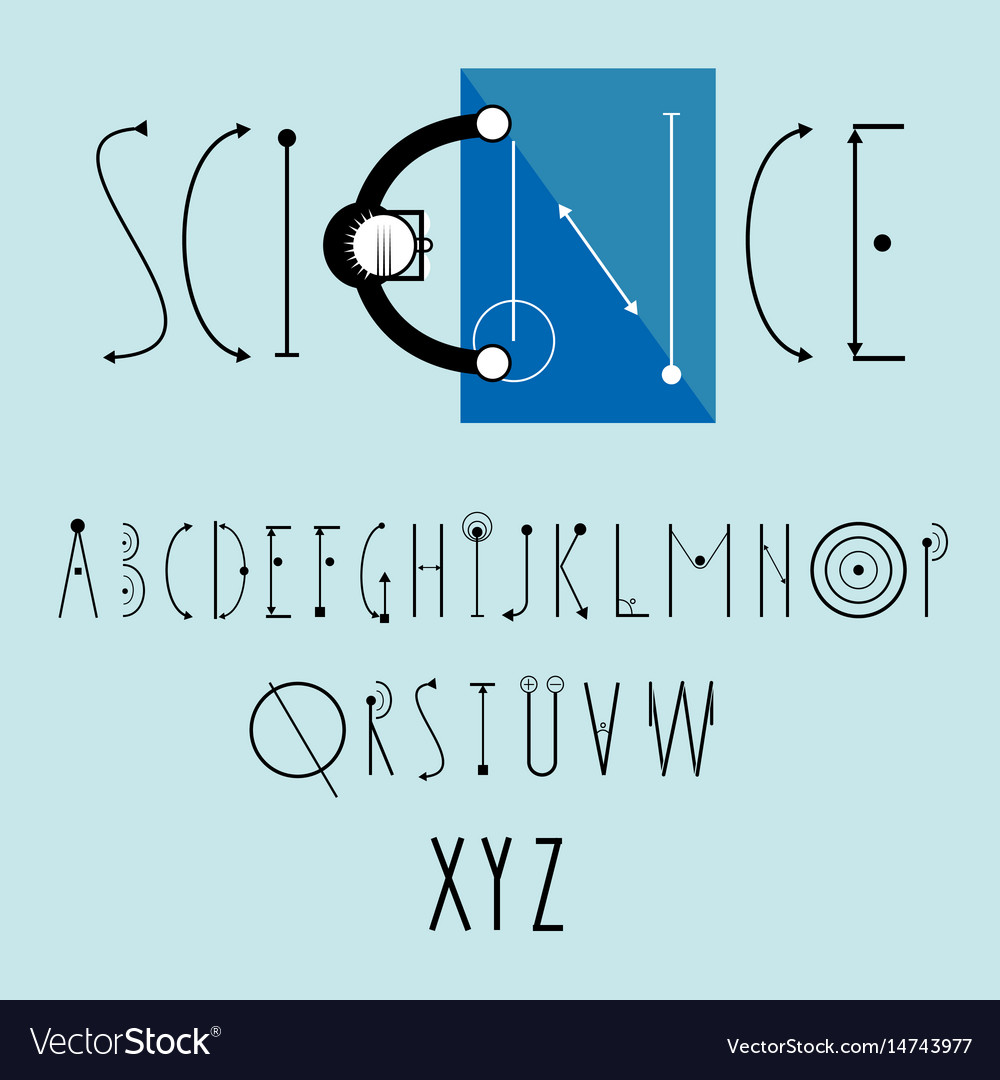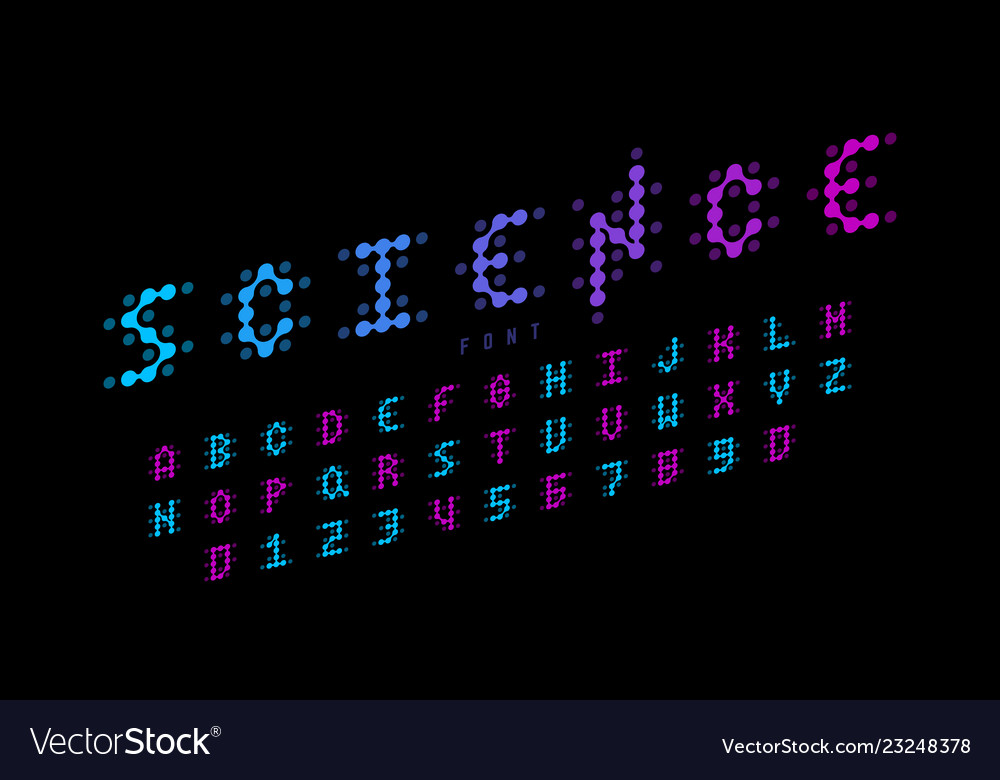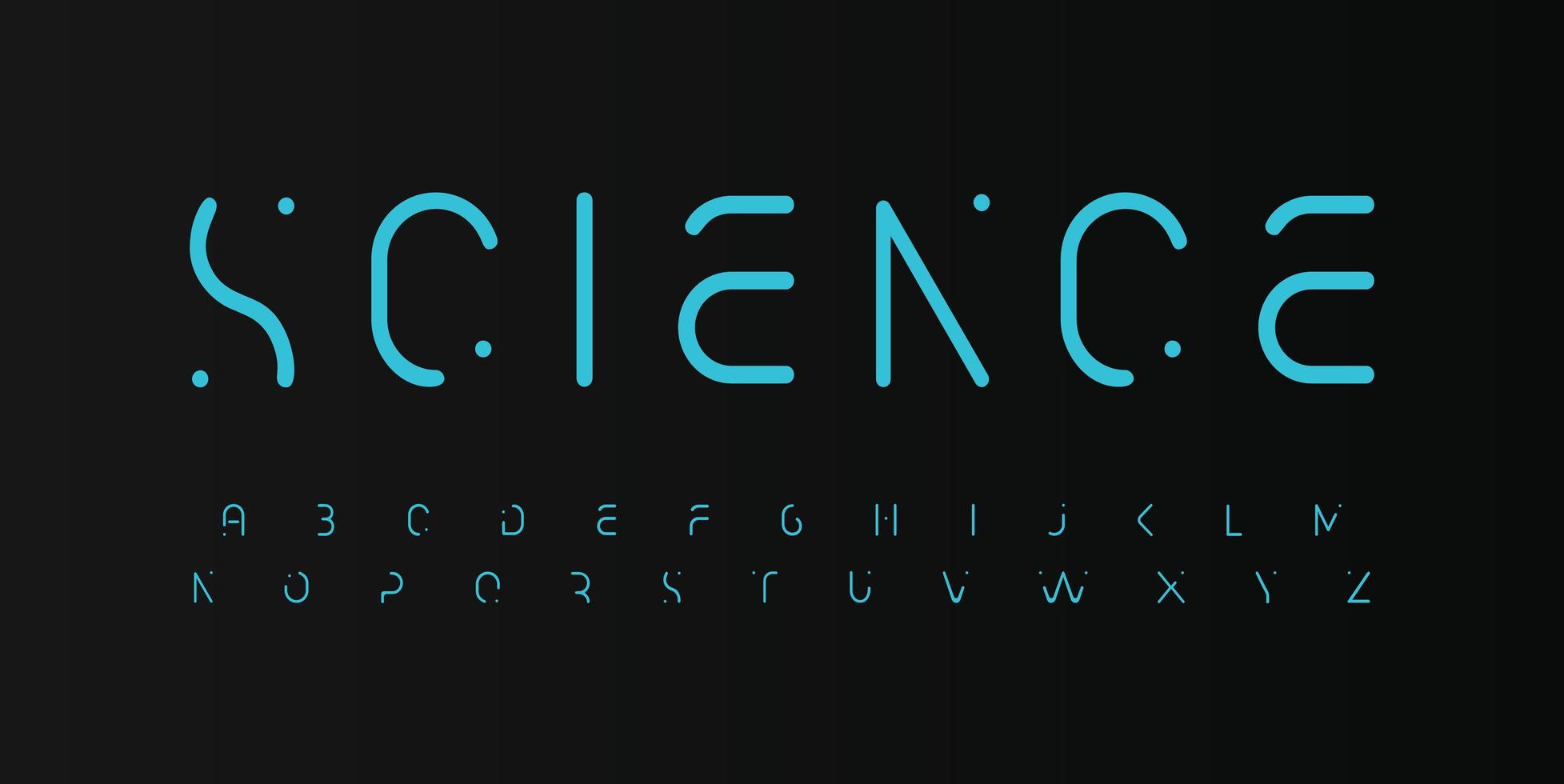
Best Fonts For Science . Arial, calibri, helvetica, verdana, and open sans, which are readily available, improve content legibility significantly. Choosing the right font (aka typeface) for your conference poster is all about two things: If you understand how certain font choices affect the composition of your content, deciding on a family of fonts and a typography scheme becomes much more straightforward. Explore the best fonts for academic papers: In this post, we explore a selection of the best science fonts available today, each chosen for its ability to embody characteristics of the future — think clean lines,. Tips on readability, style, and the perfect typography choices for essays, theses, and research. According to science, that’s actually a good thing in some cases: Every font is free to download! Click to find the best 250 free fonts in the science style.
According to science, that’s actually a good thing in some cases: Arial, calibri, helvetica, verdana, and open sans, which are readily available, improve content legibility significantly. If you understand how certain font choices affect the composition of your content, deciding on a family of fonts and a typography scheme becomes much more straightforward. Click to find the best 250 free fonts in the science style. In this post, we explore a selection of the best science fonts available today, each chosen for its ability to embody characteristics of the future — think clean lines,. Tips on readability, style, and the perfect typography choices for essays, theses, and research. Every font is free to download! Choosing the right font (aka typeface) for your conference poster is all about two things: Explore the best fonts for academic papers:
Best Fonts For Science In this post, we explore a selection of the best science fonts available today, each chosen for its ability to embody characteristics of the future — think clean lines,. Choosing the right font (aka typeface) for your conference poster is all about two things: According to science, that’s actually a good thing in some cases: In this post, we explore a selection of the best science fonts available today, each chosen for its ability to embody characteristics of the future — think clean lines,. Tips on readability, style, and the perfect typography choices for essays, theses, and research. Every font is free to download! Arial, calibri, helvetica, verdana, and open sans, which are readily available, improve content legibility significantly. Click to find the best 250 free fonts in the science style. Explore the best fonts for academic papers: If you understand how certain font choices affect the composition of your content, deciding on a family of fonts and a typography scheme becomes much more straightforward.
Science Fair Font Paulo R FontSpace Best Fonts For Science Arial, calibri, helvetica, verdana, and open sans, which are readily available, improve content legibility significantly. Choosing the right font (aka typeface) for your conference poster is all about two things: According to science, that’s actually a good thing in some cases: Explore the best fonts for academic papers: In this post, we explore a selection of the best science fonts. Best Fonts For Science.
31 Best SciFi Fonts (Science and Retro Styles) Envato Tuts+ Best Fonts For Science Click to find the best 250 free fonts in the science style. Arial, calibri, helvetica, verdana, and open sans, which are readily available, improve content legibility significantly. If you understand how certain font choices affect the composition of your content, deciding on a family of fonts and a typography scheme becomes much more straightforward. Every font is free to download!. Best Fonts For Science.
Font design for word science 418036 Vector Art at Vecteezy Best Fonts For Science Arial, calibri, helvetica, verdana, and open sans, which are readily available, improve content legibility significantly. Click to find the best 250 free fonts in the science style. Tips on readability, style, and the perfect typography choices for essays, theses, and research. In this post, we explore a selection of the best science fonts available today, each chosen for its ability. Best Fonts For Science.
31 Best SciFi Fonts (Science and Retro Styles) Envato Tuts+ Best Fonts For Science Every font is free to download! Click to find the best 250 free fonts in the science style. In this post, we explore a selection of the best science fonts available today, each chosen for its ability to embody characteristics of the future — think clean lines,. Tips on readability, style, and the perfect typography choices for essays, theses, and. Best Fonts For Science.
26 Best SciFi Fonts (Science and Retro Styles) Sci fi fonts Best Fonts For Science If you understand how certain font choices affect the composition of your content, deciding on a family of fonts and a typography scheme becomes much more straightforward. Click to find the best 250 free fonts in the science style. Choosing the right font (aka typeface) for your conference poster is all about two things: Every font is free to download!. Best Fonts For Science.
10 Excellent STEM and Science Fonts Ask the Egghead, Inc. Best Fonts For Science Explore the best fonts for academic papers: According to science, that’s actually a good thing in some cases: If you understand how certain font choices affect the composition of your content, deciding on a family of fonts and a typography scheme becomes much more straightforward. In this post, we explore a selection of the best science fonts available today, each. Best Fonts For Science.
Science Font by Designvector10 · Creative Fabrica Best Fonts For Science Click to find the best 250 free fonts in the science style. Tips on readability, style, and the perfect typography choices for essays, theses, and research. Every font is free to download! Choosing the right font (aka typeface) for your conference poster is all about two things: Arial, calibri, helvetica, verdana, and open sans, which are readily available, improve content. Best Fonts For Science.
Top 5 Fonts for Science Fiction Movie Posters YouTube Best Fonts For Science Every font is free to download! According to science, that’s actually a good thing in some cases: If you understand how certain font choices affect the composition of your content, deciding on a family of fonts and a typography scheme becomes much more straightforward. Choosing the right font (aka typeface) for your conference poster is all about two things: Tips. Best Fonts For Science.
Science Project Font Best Fonts For Science According to science, that’s actually a good thing in some cases: Choosing the right font (aka typeface) for your conference poster is all about two things: Arial, calibri, helvetica, verdana, and open sans, which are readily available, improve content legibility significantly. In this post, we explore a selection of the best science fonts available today, each chosen for its ability. Best Fonts For Science.